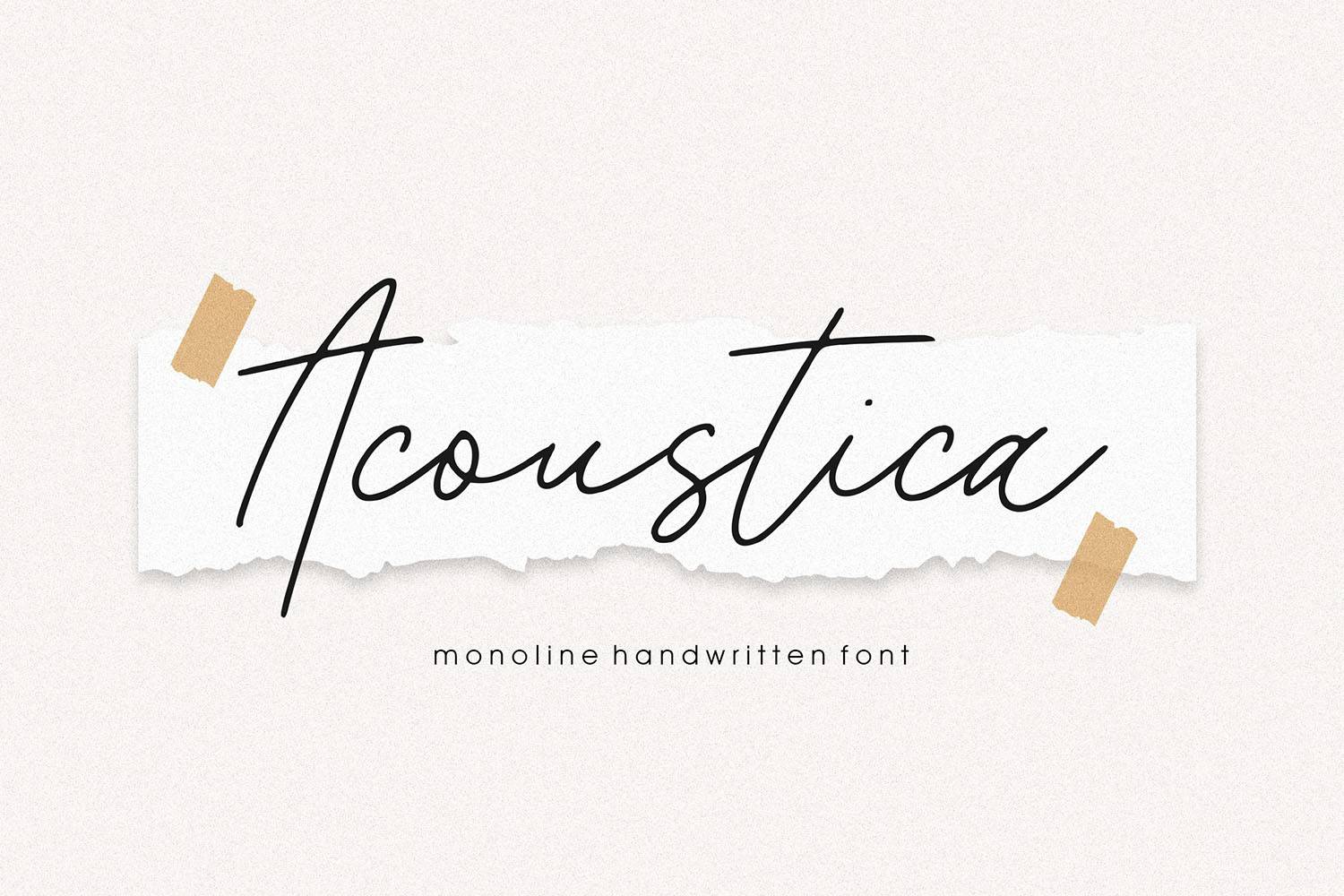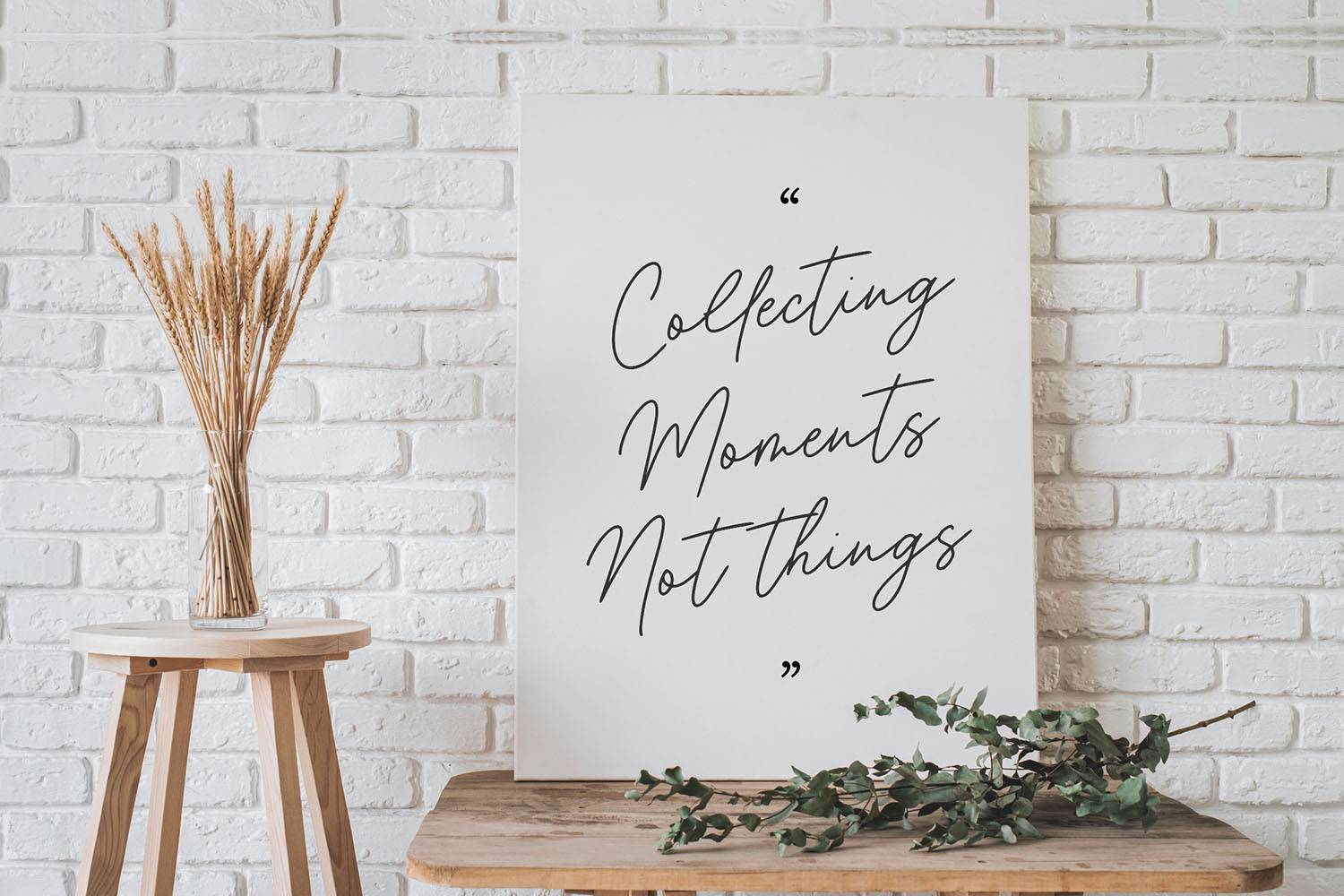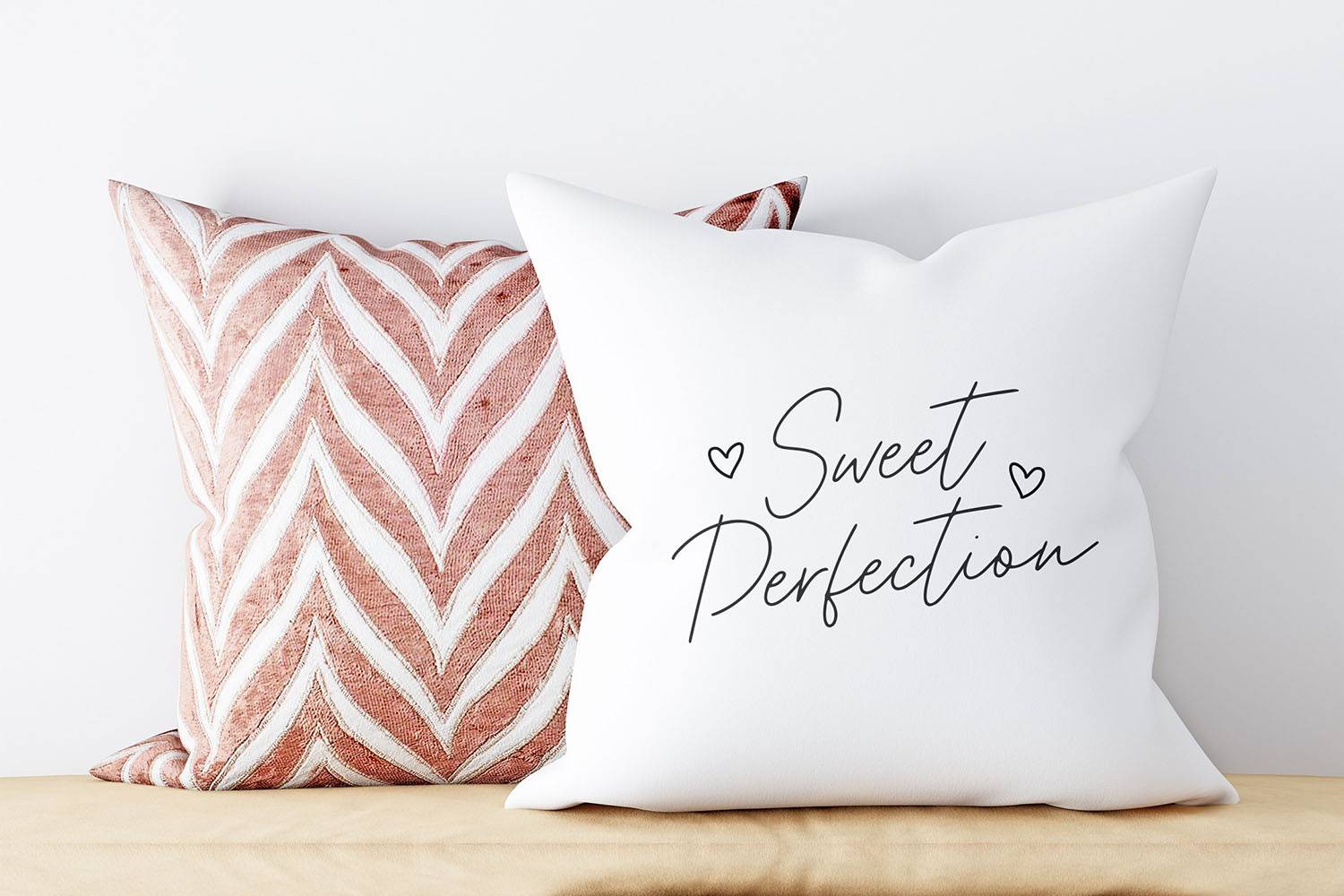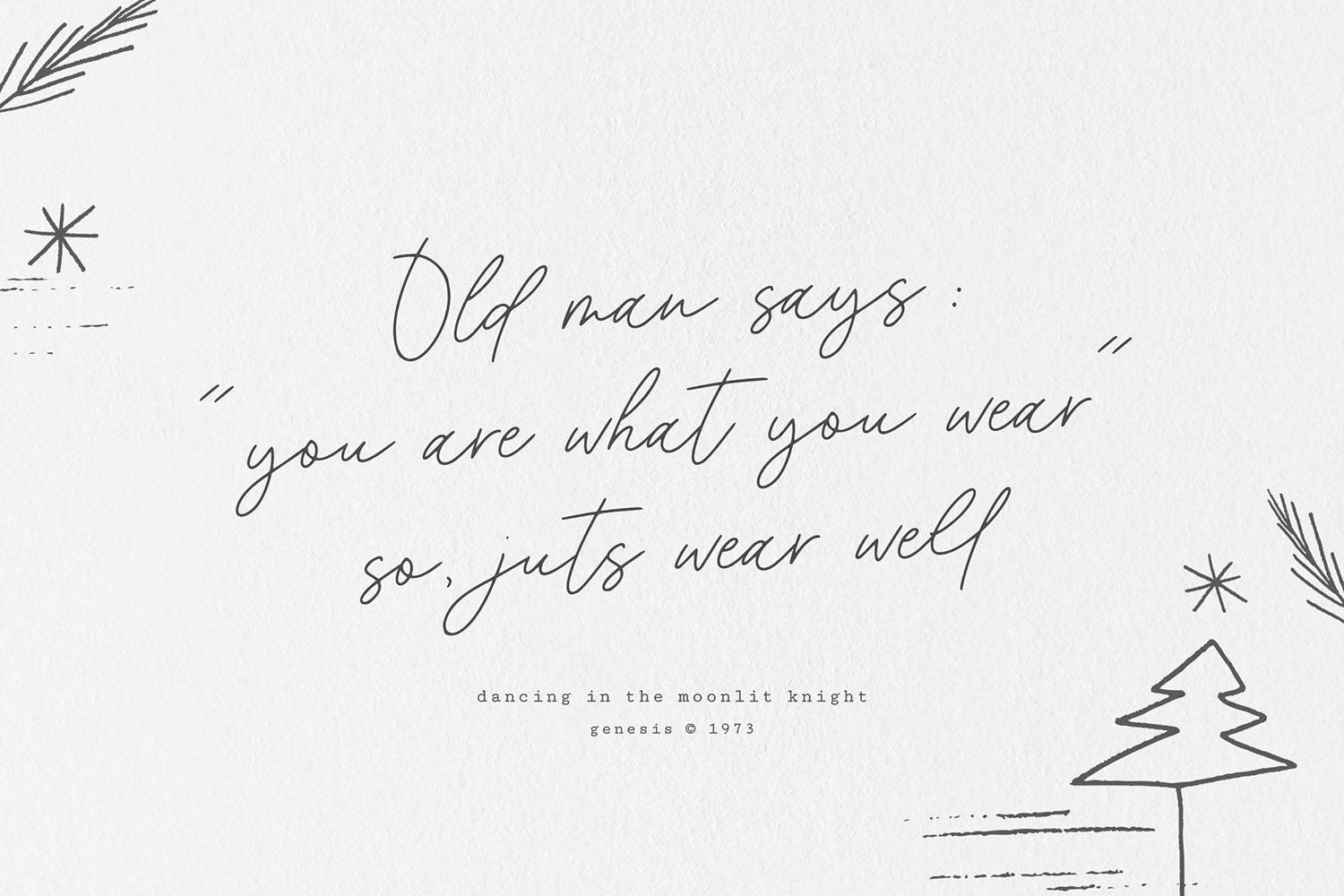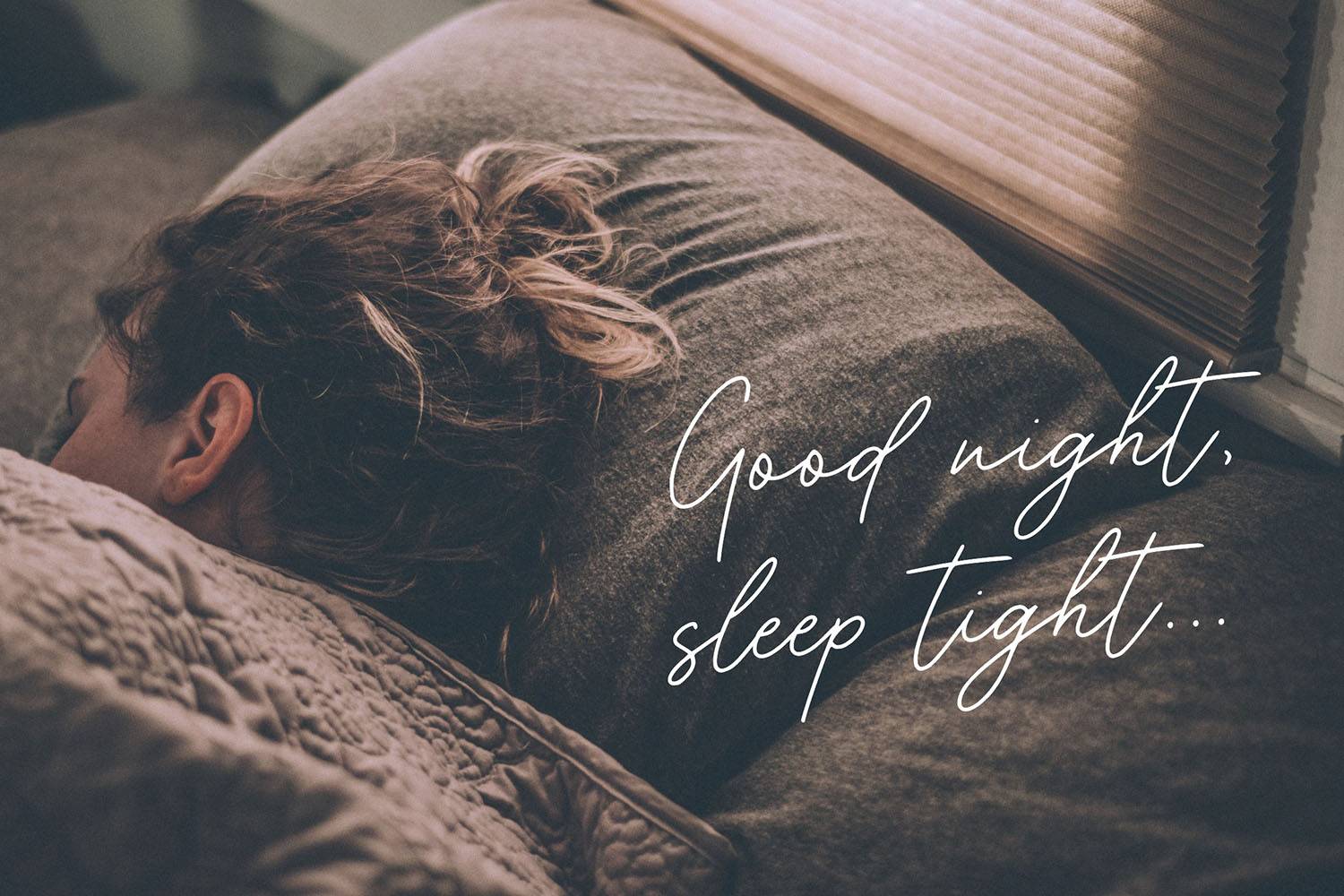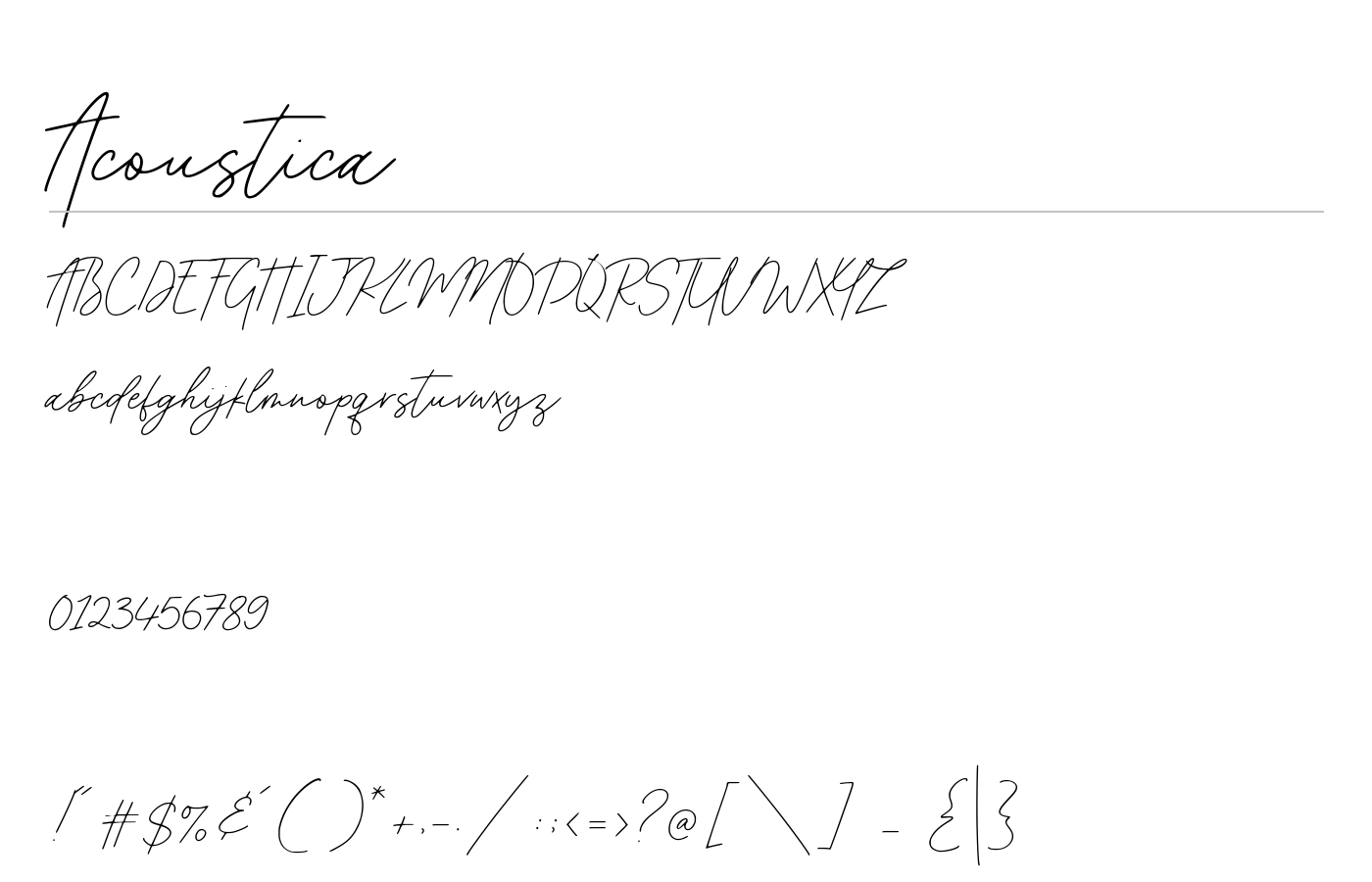
Acoustica is a delicate, thin script font with an elegant, handwritten style that conveys a sense of lightness and sophistication. Its tall, narrow letterforms and fluid, slightly slanted strokes create a modern yet personal feel, making it ideal for stylish branding, invitations, and feminine design projects. This font works best in large sizes where its fine details can shine, adding charm and grace to logos, headlines, and creative editorial layouts.
Acoustica Font
About Acoustica Font